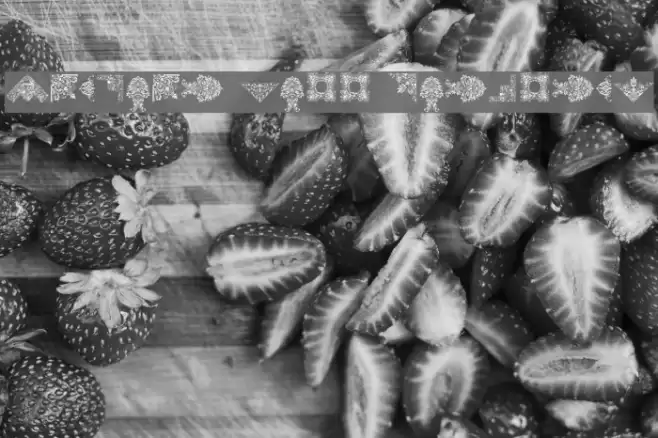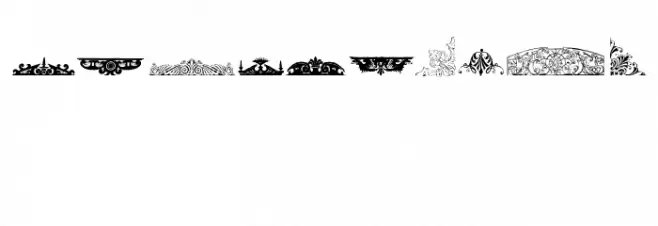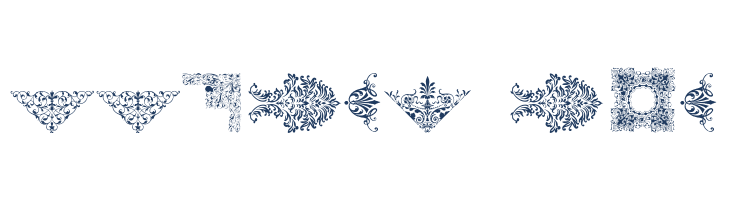
Victorian Free Ornaments Font
Victorian Free Ornaments Description
Highly decorative set of Victorian-style ornamental glyphs featuring intricate floral and scrollwork patterns, designed for embellishment rather than standard text communication.
Ornate Victorian-inspired ornamental glyphs from Dingbats fonts.
- Proposed Projects: Wedding invitations, certificates, decorative borders, vintage posters, book covers, packaging design.
- Overall Style: Victorian, Decorative, Vintage
- Use Case: Ornaments, Borders, Decorative accents